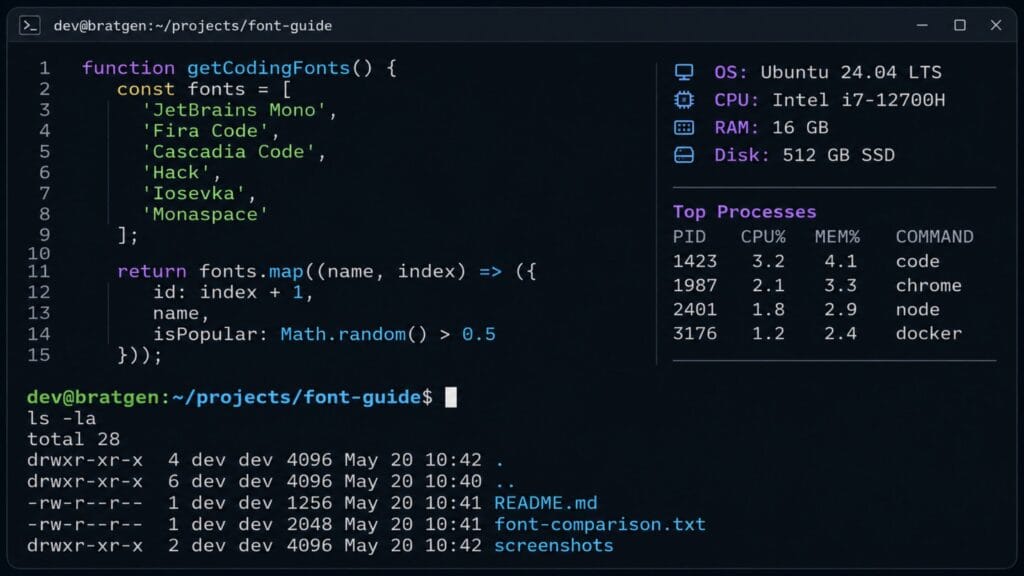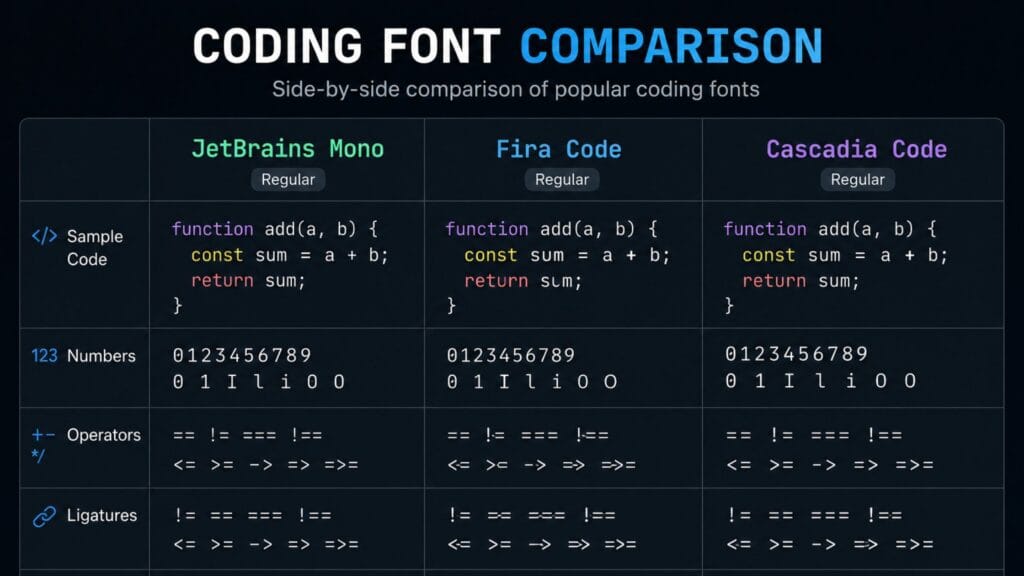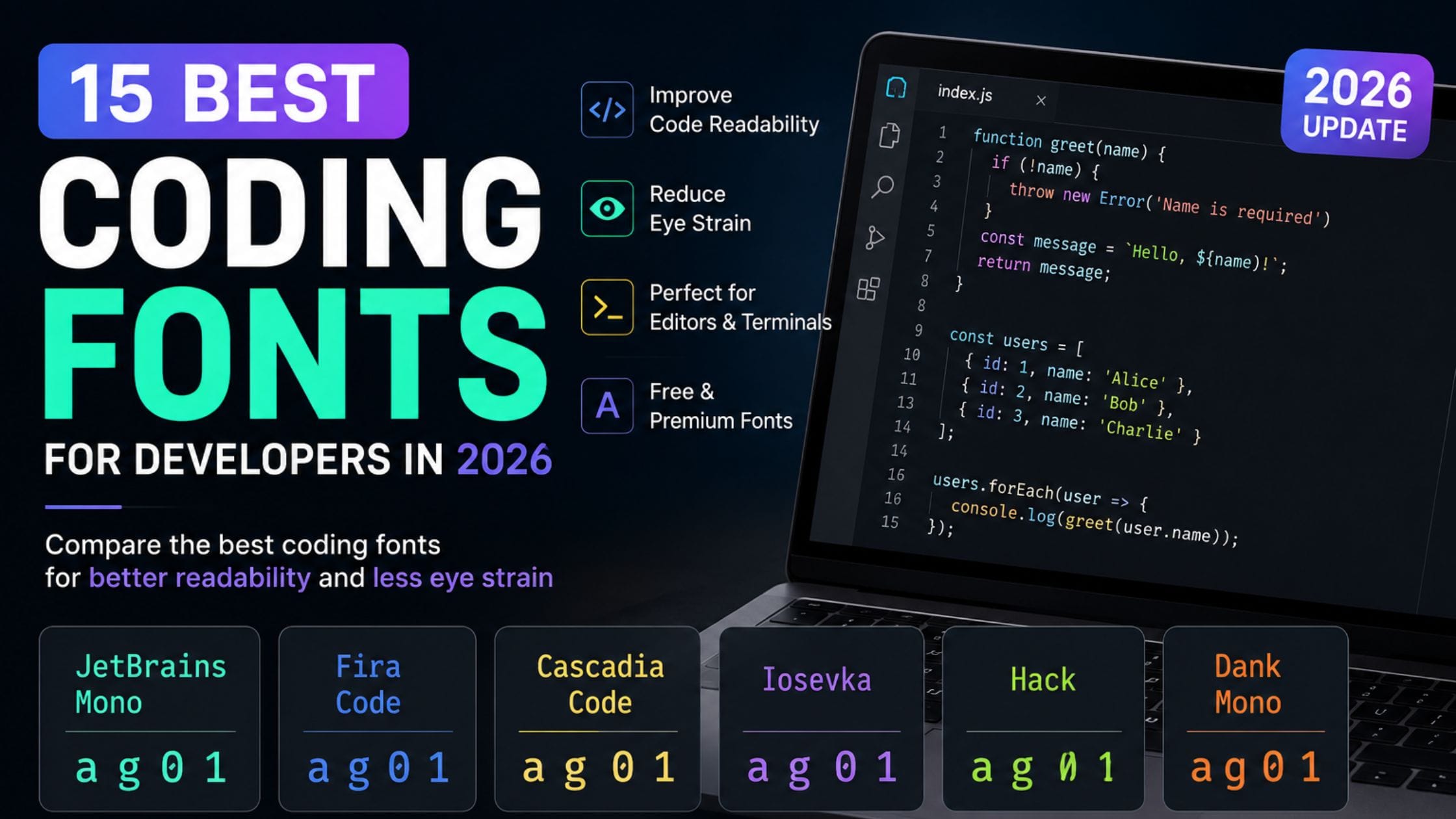
15 Best Coding Fonts for Developers in 2026 (Free and Paid)
Most developers spend hours every day staring at the same font without ever choosing it on purpose. The default editor font ships with the IDE, nobody changes it and small readability problems pile up over a long session. Blurry zeros, cramped punctuation and letters that look almost identical all slow you down in ways you rarely notice until you switch to something better. This guide breaks down the best coding fonts for 2026, what actually makes a font good for reading code and how to pick one that fits your editor, your terminal and your eyes.
Short answer: the best coding font for most developers is JetBrains Mono because it is free and clear at small sizes. Choose Fira Code if you want ligatures and Cascadia Code if you work mostly in Windows Terminal. Berkeley Mono is the pick if you are happy to pay for a polished paid option. The full comparison follows below.
What Makes a Font Good for Coding
A coding font is a monospaced typeface built to keep every character the same width so columns of code line up correctly. Regular text fonts like Arial or Times New Roman are proportional, meaning an āiā takes up less space than a āw,ā which breaks indentation and makes nested code hard to scan. Programming fonts fix this by giving every letter, number and symbol the exact same horizontal space.
Beyond spacing, a strong coding font needs to separate characters that regular fonts often blur together. The number zero and the capital letter O, the lowercase L, the capital I and the number one are the classic trouble spots. A well-designed coding font gives the zero a dot or a slash, gives the one a distinct flag and keeps the L and I visually different even at 13 or 14 pixels.
Ligatures are another factor worth understanding before you pick a coding font. A ligature merges a symbol combination like => or != into a single connected glyph on screen, while the underlying characters in your file stay completely unchanged. Some developers find ligatures speed up scanning. Others find them distracting or even misleading, especially in code reviews where the raw characters matter more than how they render. Every font in this guide either supports ligatures as an optional toggle or skips them by design, so you can decide for yourself.
How We Picked These Fonts
This list focuses on fonts that are actually in wide use across VS Code, JetBrains IDEs and terminal emulators today, not niche experiments. Each font here was evaluated against four practical tests: how well it separates similar characters, how it holds up during long reading sessions, whether it renders cleanly across Windows, macOS and Linux and how easy it is to license or install for personal and commercial projects. Free and open source options make up most of the list because that is what most developers actually reach for but a few paid fonts are included where the price genuinely buys something extra.
Quick Comparison Table
| Monaspace | Variable weight and texture | Yes | Free | Windows, macOS, Linux |
| Geist Mono | Clean, minimal branding style | No | Free | Windows, macOS, Linux |
JetBrains Mono: Best All-Around Coding Font
JetBrains Mono is the safest default recommendation for most developers heading into 2026 and it comes bundled with every JetBrains IDE including IntelliJ IDEA, WebStorm and PyCharm. According to JetBrains’ own font page, the typeface keeps letter width standard while increasing the height of lowercase letters, which helps each character occupy more pixels and improves rendering at small sizes. The JetBrains font team also explains that the zero carries a visible dot to separate it from the capital O, a detail that matters more than it sounds during a long debugging session.
The font ships with 138 code-specific ligatures that can be turned on or off in your editor settings, plus support for well over a hundred languages. It comes in eight weights from Thin to ExtraBold, so you can match it to dark mode, light mode or a presentation screen without switching fonts entirely. Because it is free, open source under the Apache 2.0 license and already installed if you use a JetBrains product, it is the easiest coding font on this list to try today.
Fira Code: Best for Ligature Fans
Fira Code popularized programming ligatures years ago and remains one of the most widely used coding fonts in 2026. It transforms common symbol pairs such as !=, => and <= into single connected glyphs while keeping the actual characters in your file exactly the same. Web developers working heavily in JavaScript and TypeScript tend to gravitate toward Fira Code because arrow functions and comparison operators read noticeably faster once merged.